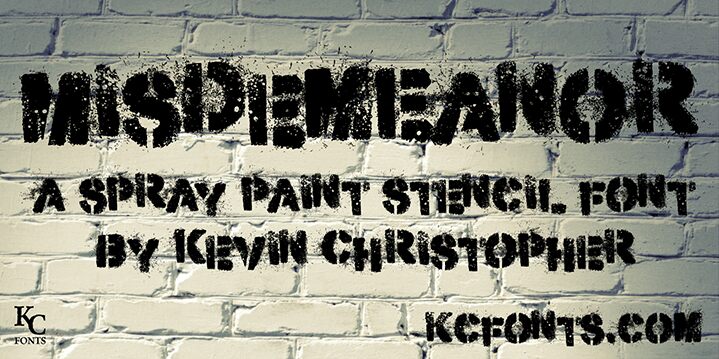
Misdemeanor by Kevin Christopher is a free eroded military display font with broad, uneven letterforms and a hard stamped impression. Its battered surface looks scraped, chipped, and splattered.
It can turn a title into a battered stencil mark, making it apt for action-game graphics and gig posters. The abrasive texture also suits punk album covers and skate merchandise, especially when the artwork draws on photocopied or spray-painted surfaces. Here the lettering can function as part of the distressed image rather than as neutral text.
Misdemeanor